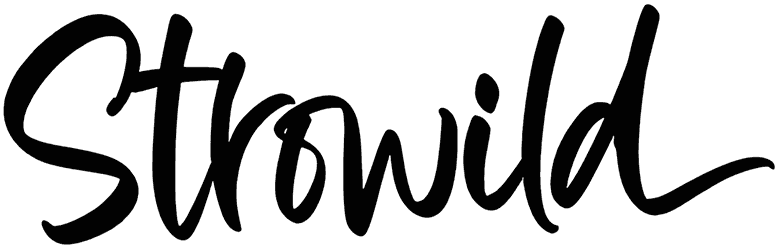
Strowild Font
Special writings should be written with special fonts! Strowild is one of those script fonts whose price is in its place and can be effective in conveying a close human feeling.
This handwritten font does not include numbers, but it provides you with a complete set for writing any text, with which you can convey the deepest feelings of your heart to your designs. You can design different types of logos, titles, and posters using Strowild.
Strowild is a modern handwritten font. Made for any professional project branding that need a modern and
attractive typeface. It is the best for logos, branding and quotes. Every letter has a unique and beautiful touch.-Link to purchase commercial license with an option: https://ditatype.com/product/strowild-modern-handwritten-font/